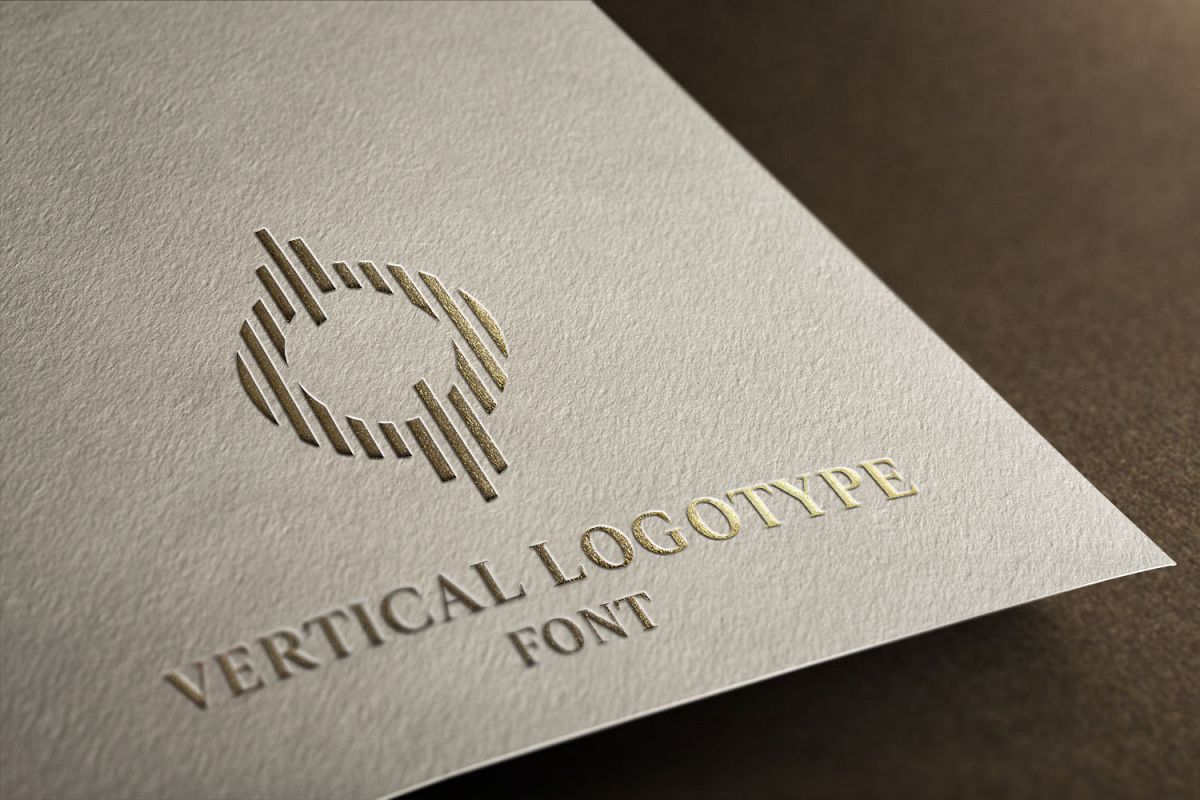
Vertical Logotype Font is a modern, linear art, trendy and edgy typeface with UPPERCASE characters. Vertical Logotype Font is great for creating any type of graphic design, print, t-shirts, logos, posters, flyer, packaging, branding etc.